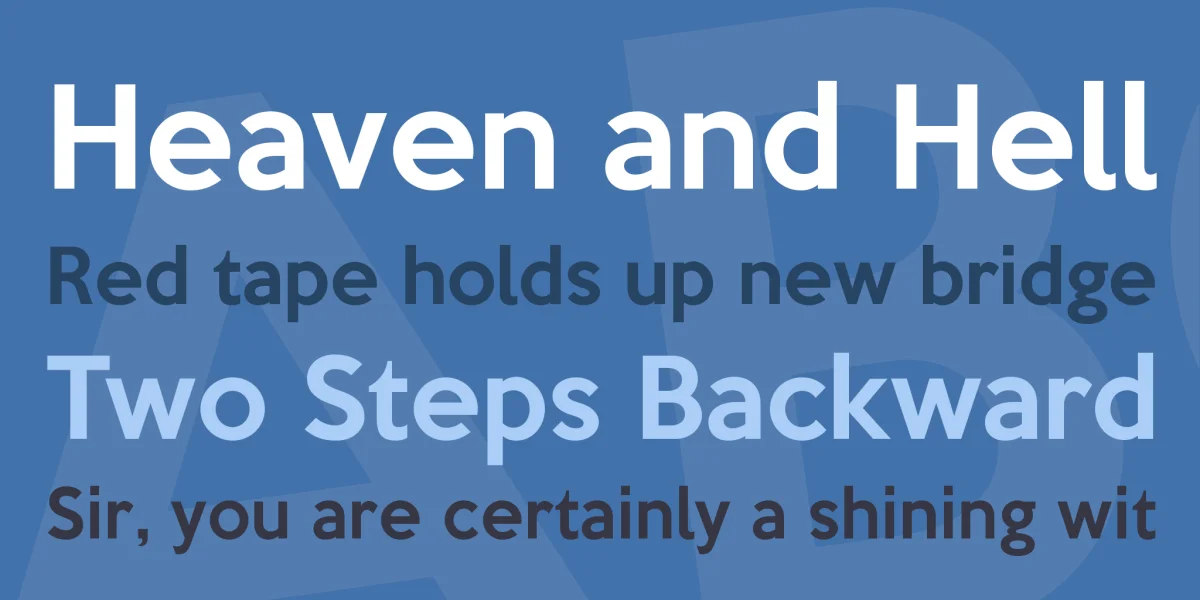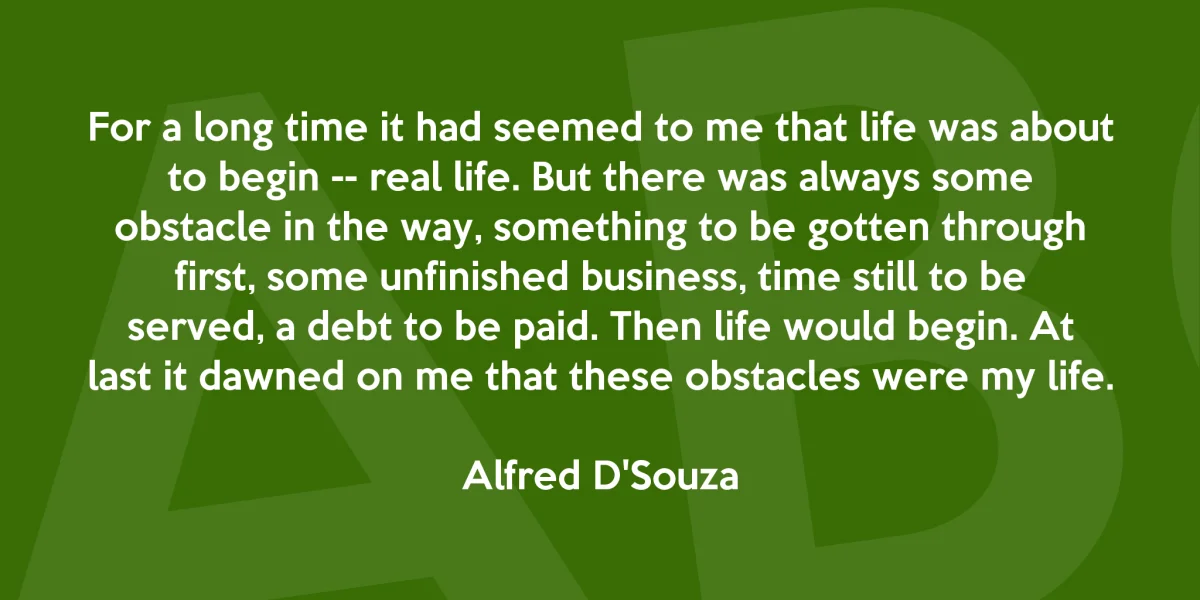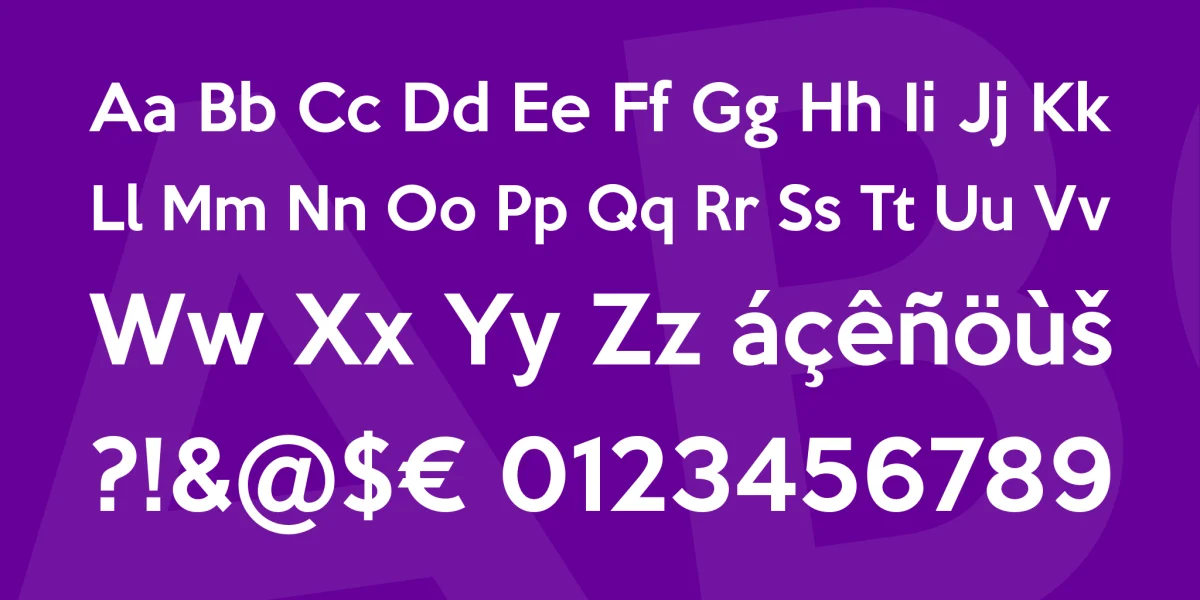
Keep Calm is a family of fonts developed from the now famous World War 2 poster that was designed in 1939 but never issued, then rediscovered in 2000. As well as the original Keep Calm font, the medium weight of the poster, new weights are now available – Keep Calm Book (regular weight), Heavy and Light – and each weight comes with a free italic. The family includes Central European and Western European accented characters including Welsh diacritics and Irish dotted consonants.
When I first saw the Keep Calm and Carry On poster, I wrongly assumed the letters to be Gill Sans. Although that influence is apparent, in the R particularly, the lettering was clearly hand-drawn by a talented designer who, if the M’s perfectly pointed vertex is anything to go by, was equally steeped in the signage of the London Underground. The most anomalous character, the C, resembles that found in the Gotham typeface, and given that Gotham’s vernacular sources included the handmade, ‘basic lettering’ of engineers, perhaps that shouldn't be surprising.
Developing the Keep Calm typeface is an exercise in extrapolation; an intriguing challenge to build a whole, high quality font family based on the twelve available uppercase letters of the Keep Calm poster, and on similar lettering from the other two posters in the original series. This has required the creation of complementary lowercases that are believably 1939; that maintain the influence of Gill and Johnston while also hinting at the functional imperative of a wartime drawing office. The draughtsman was balancing intuitive, human qualities, and the pure pleasure of drawing elegant contemporary letters, against an underlying geometry of ruled lines, perfect circles, 45° terminals, and a requirement for no-nonsense clarity.